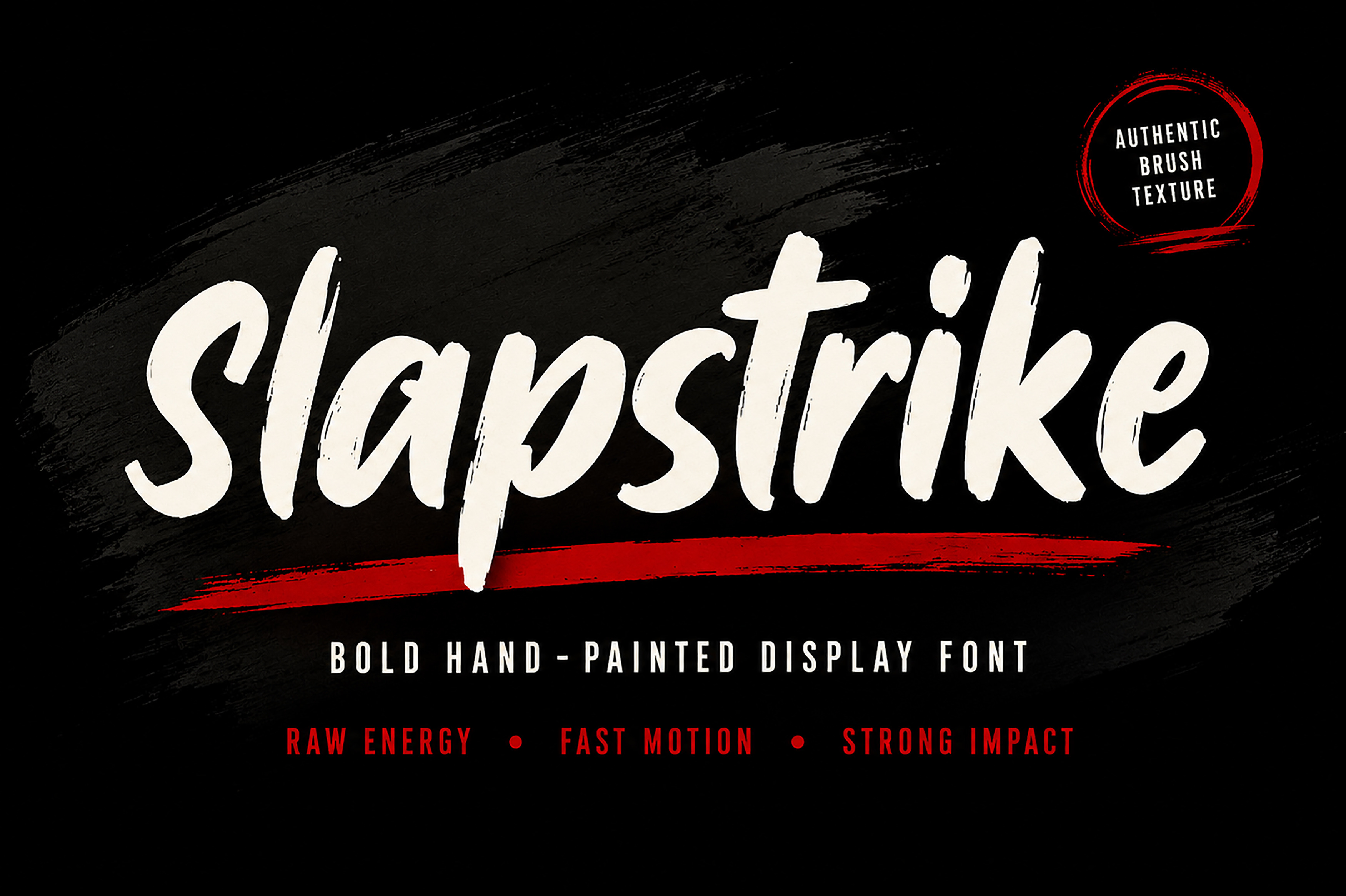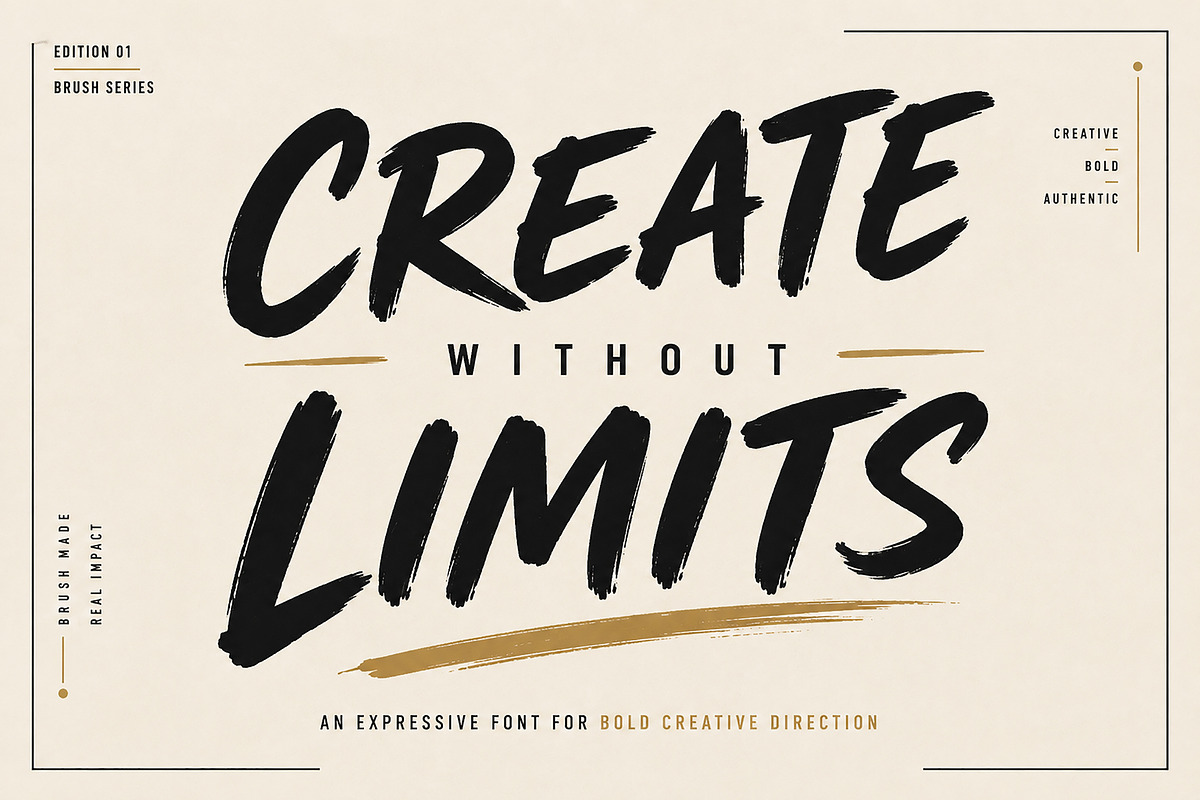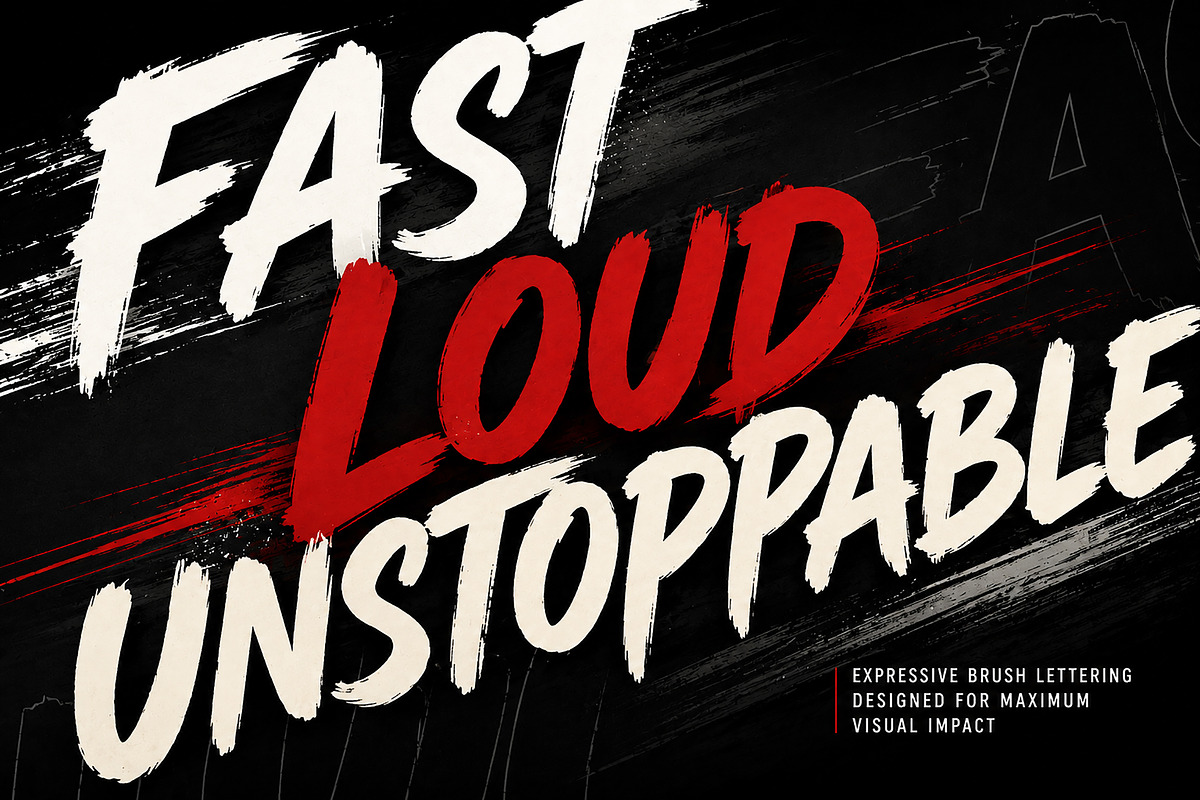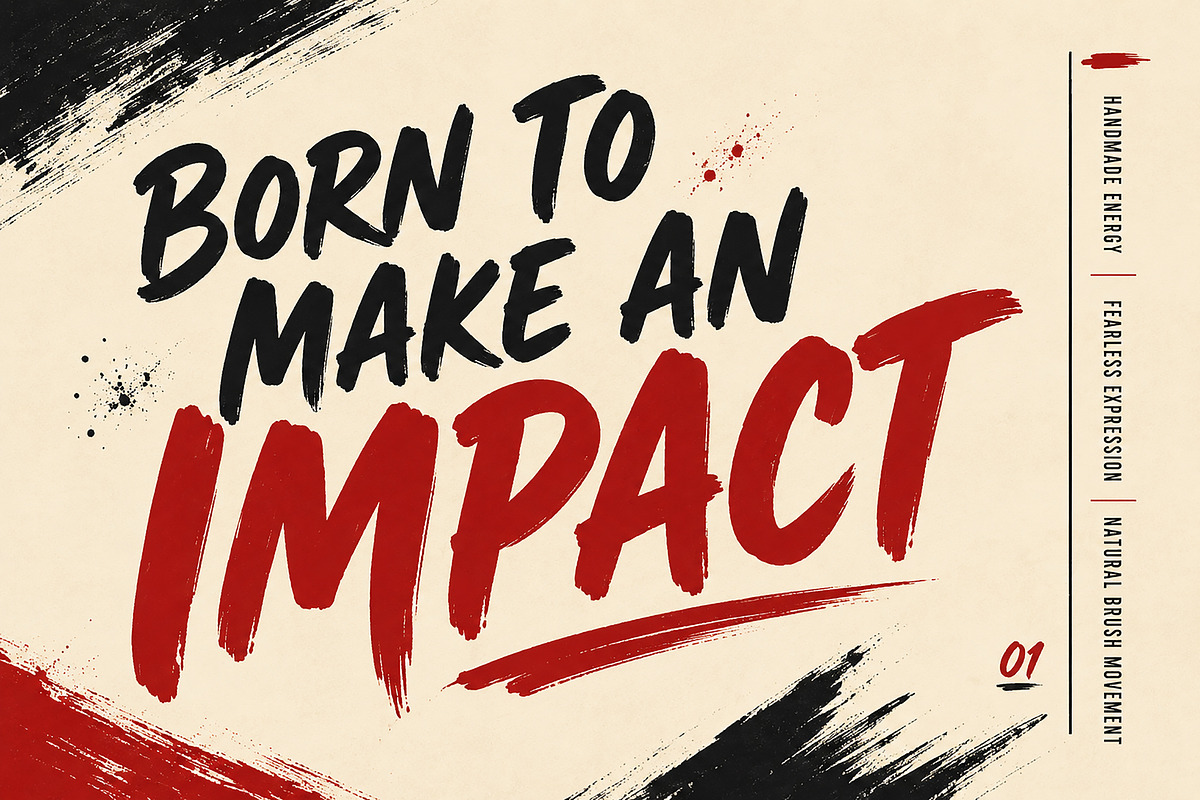
Slapstrike – Bold Brush Display Font
Slapstrike is a bold hand-painted brush display font designed to bring power, energy, and personality to your creative projects. Featuring authentic brush strokes and natural rough edges, this font creates an eye-catching handcrafted look that instantly grabs attention.
Whether you're designing logos, posters, branding, apparel, or social media graphics, Slapstrike delivers a bold visual impact with a modern brush style that stands out in every composition.
Its expressive lettering makes it an excellent choice for creative professionals, designers, and content creators looking for a premium display font with a strong artistic character.
Bold Brush Display Font
Hand-Painted Letterforms
Natural Brush Texture
Authentic Rough Edges
Strong Visual Impact